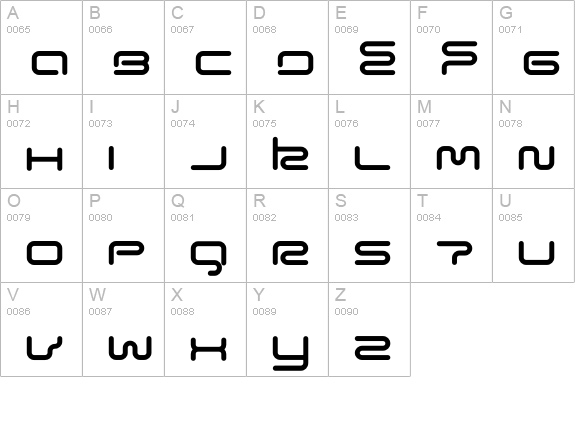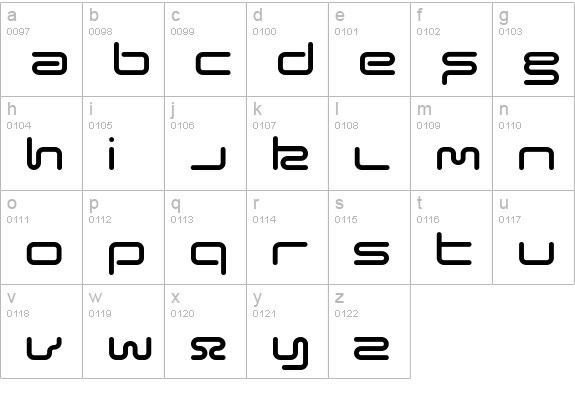
Euphoric-Heavy Font Details
Euphoric-Heavy font exudes a sense of joy and excitement with its bold and energetic design. The strong, thick strokes of this typeface convey a feeling of power and confidence, making it the perfect choice for headlines and attention-grabbing text. The euphoric vibe of this font is sure to make your designs stand out and leave a lasting impression on viewers. If you're looking to add a touch of excitement to your projects, look no further than Euphoric-Heavy font. And the best part? It's completely free to download at FontsMarket.com! Don't miss out on the opportunity to enhance your designs with this dynamic and impactful typeface. Download Euphoric-Heavy today and let your creativity soar!